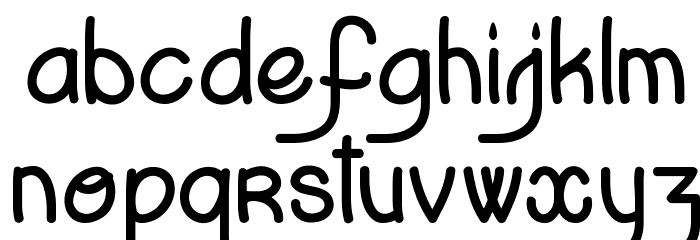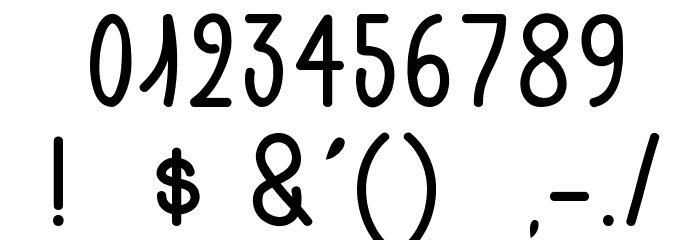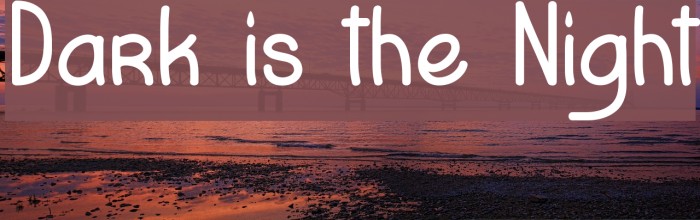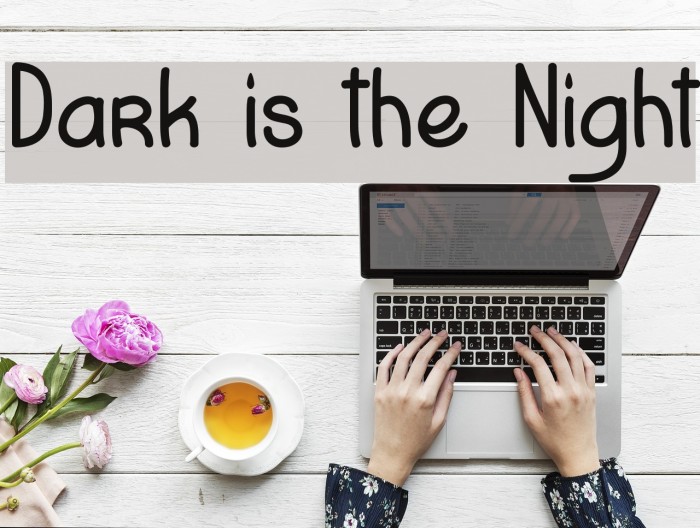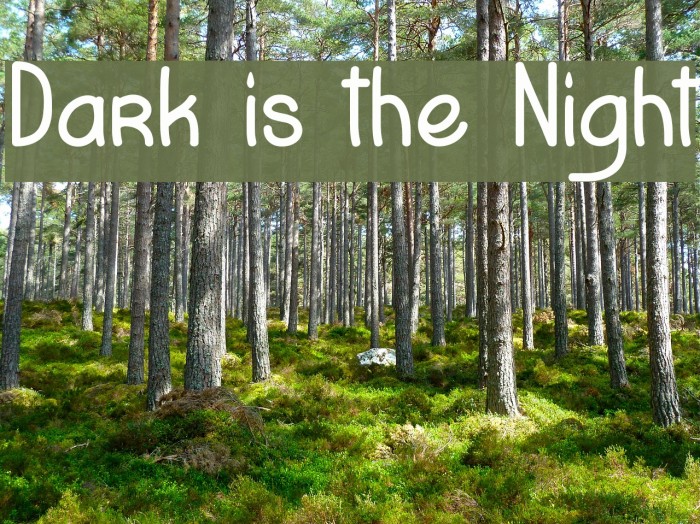
Dark is the Night Font
This font features a playful and rounded style, characterized by its smooth curves and consistent stroke width. The uppercase letters are bold and prominent, while the lowercase letters maintain a friendly and approachable appearance. Numbers and special characters follow the same rounded aesthetic, ensuring uniformity across all glyphs. The font's design is simple yet effective, making it suitable for a variety of creative applications. Its legibility and charm make it an excellent choice for projects that require a touch of whimsy and warmth.
A playful, rounded font with consistent stroke width and smooth curves.
- Proposed Projects: Ideal for children's books, playful branding, greeting cards, and casual invitations.
- Overall Style: Playful